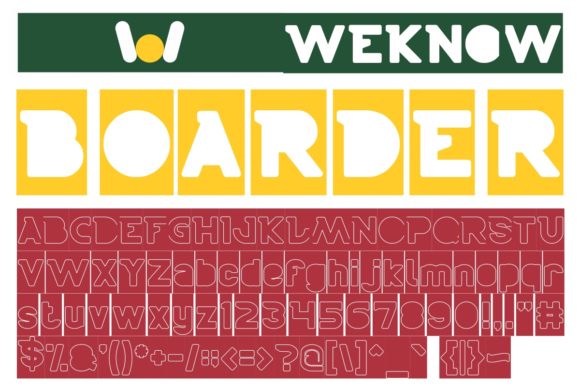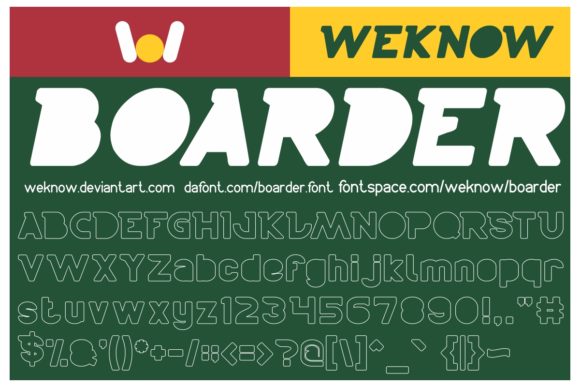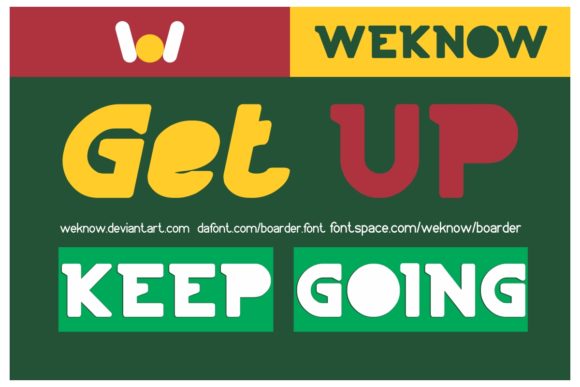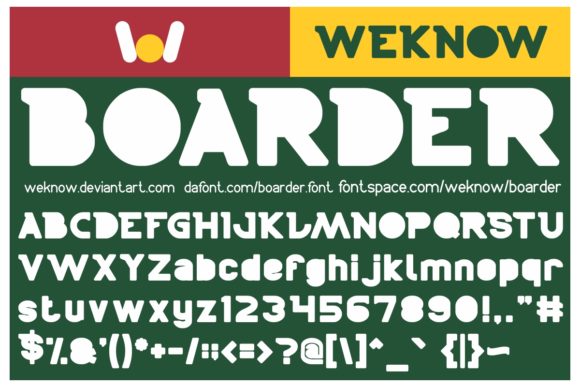
The Ultimate Display Font: A Deep Dive into Boarder
I’ll never forget the design project that led me to discover Boarder Font. I was working on a branding campaign for a trendy new coffee shop, and I needed a font that would make their logo stand out. After hours of scouring font libraries and testing out different options, I stumbled upon Boarder – a basic and bold display font that instantly elevated my design. In this article, I’ll share my experience with Boarder, its features, and how to make the most of it in your design projects.
An Honest Review of Boarder Font
So, what makes Boarder Font so special? Here are some things I love:
- ✨ Bold and eye-catching: Boarder Font is perfect for making a statement. Its bold design ensures that your text will grab attention.
- ✅ Highly versatile: Whether you’re designing a logo, poster, or social media graphic, Boarder Font adapts seamlessly to different contexts.
- 💡 Easy to read: Despite its boldness, Boarder Font remains surprisingly legible, even at smaller sizes.
Of course, no font is perfect. Here are some minor quirks to keep in mind:
- 🤔 Limited font weights: Boarder Font currently only offers a single weight, which might limit its use in certain design scenarios.
- ⚠️ Glyph support: While Boarder Font supports a wide range of characters, some special glyphs or diacritics might not be included.
The Story Behind Boarder Font
Boarder Font was designed with one goal in mind: to create a bold and versatile display font that would help designers take their projects to the next level. Inspired by modern typography trends and a passion for creative experimentation, Boarder Font is the result of careful craftsmanship and attention to detail.
| Font Name | Boarder Font |
| Author | weknow |
| What is Boarder Font best used for? | Boarder Font is perfect for display purposes, such as headlines, titles, logos, and social media graphics. |
| Does Boarder Font support OpenType features? | Yes, Boarder Font supports OpenType features, including glyphs and stylistic alternates. |